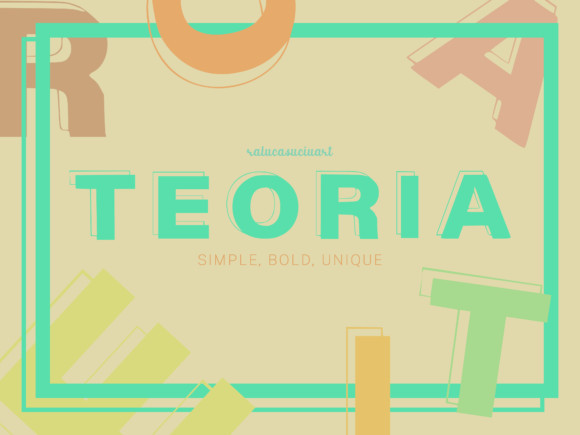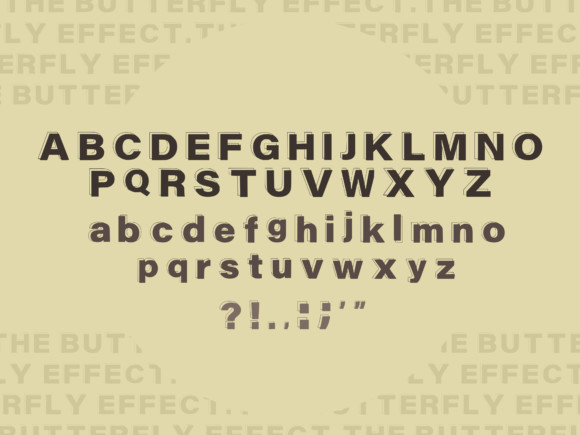
Teoria Font
Teoria is a minimalist, bold and modern sans serif font. It is very versatile and works with any color scheme, be it pastel, neon or dark. With its neat and beautiful arrangement of letters, this typeface will look outstanding in both formal and non-formal designs.